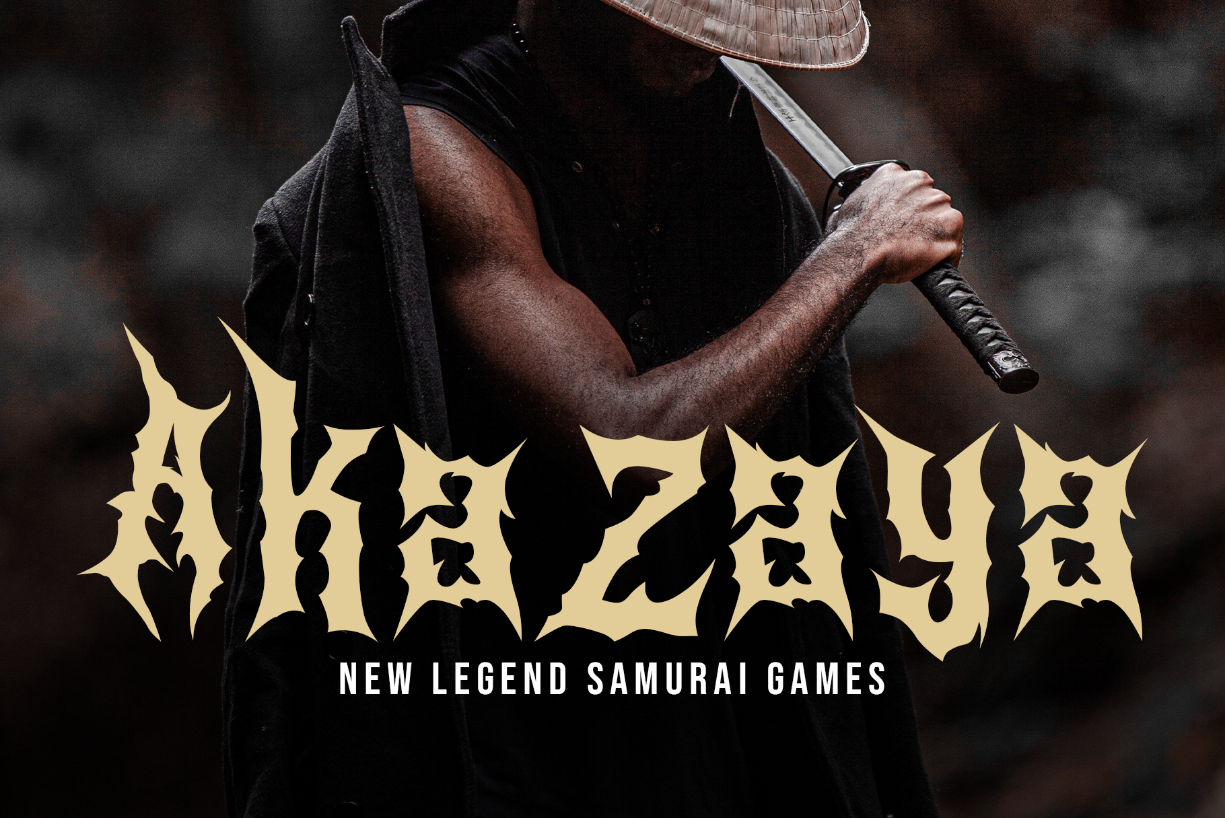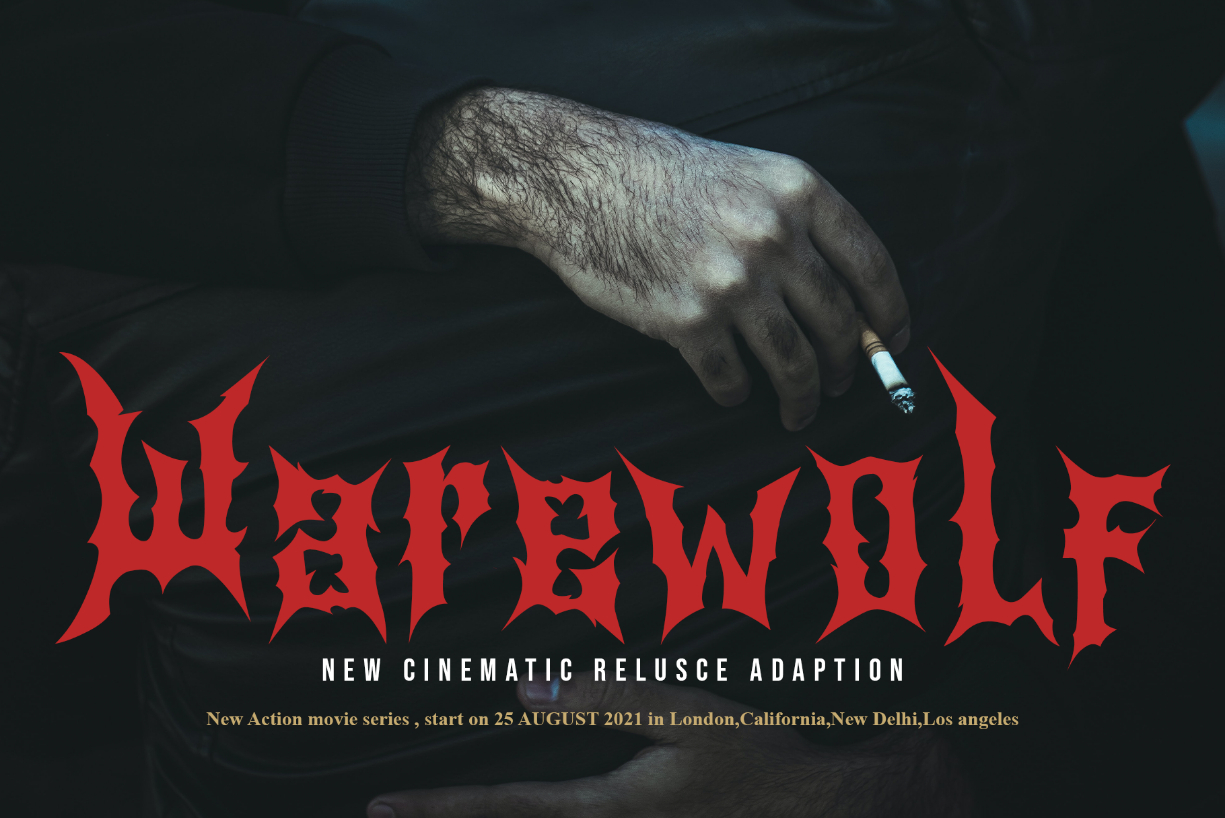
Blackthorn Font
About Blackthorn Font
Blackthorn is a modern and scary blackletter font. It’s great for crafters and designers. Compatible with tools such as Photoshop and Silhouette design studio.